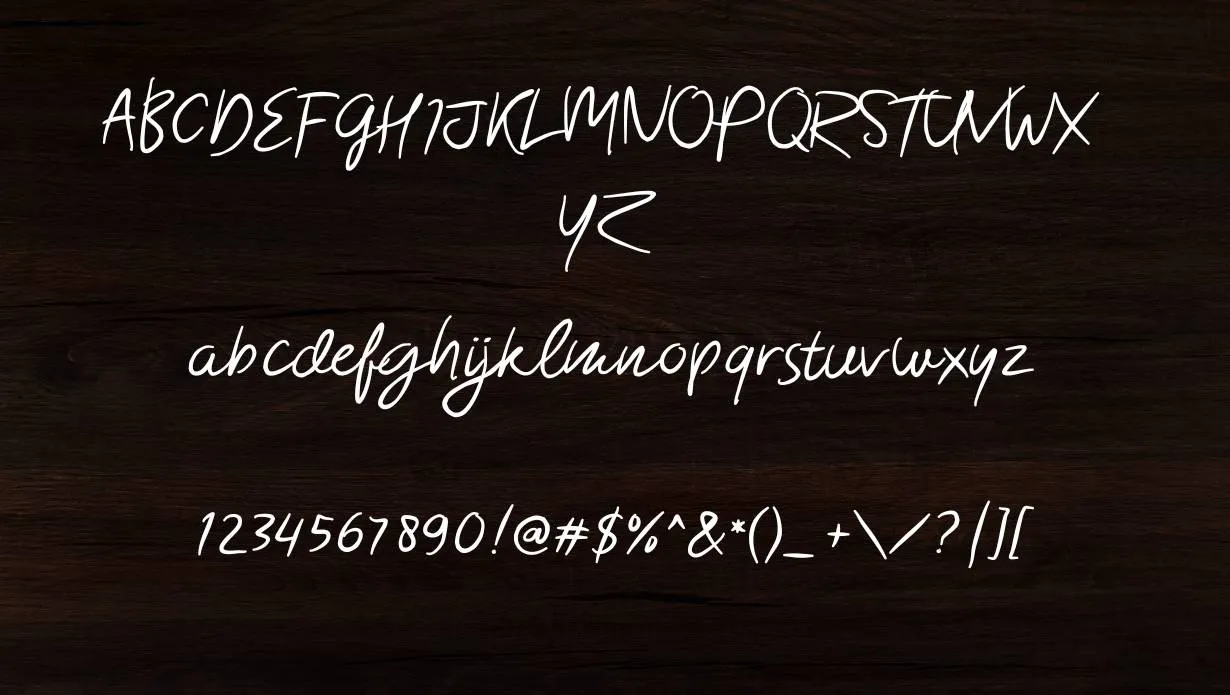
Morsal Font is a font that exudes a friendly and casual vibe, making it ideal for invitations, posters, and personal messages. It typically supports file formats like OTF and TTF, ensuring compatibility across various design applications.
This font is like a warm welcome in written form, perfect for personal communications and engaging designs. With its inviting aura, Morsal Font adds a touch of warmth and approachability to any text it graces.